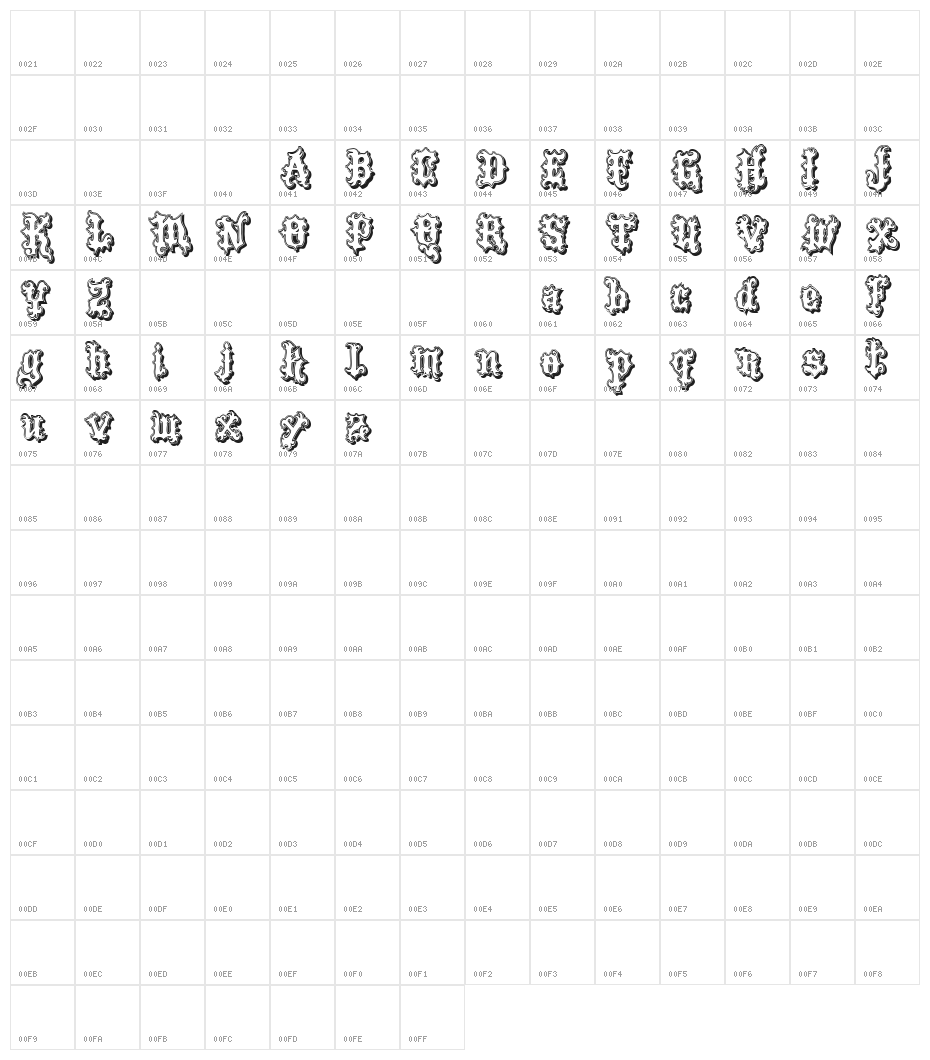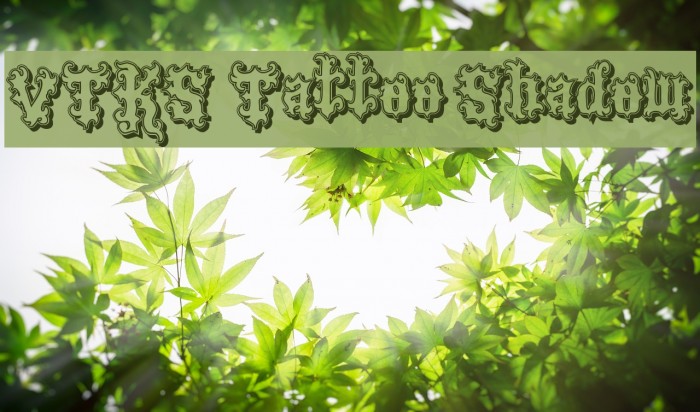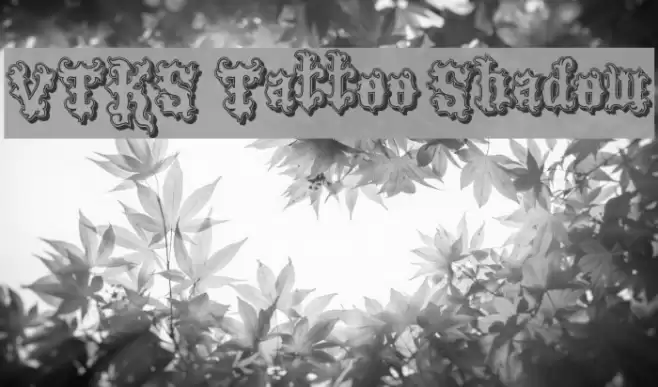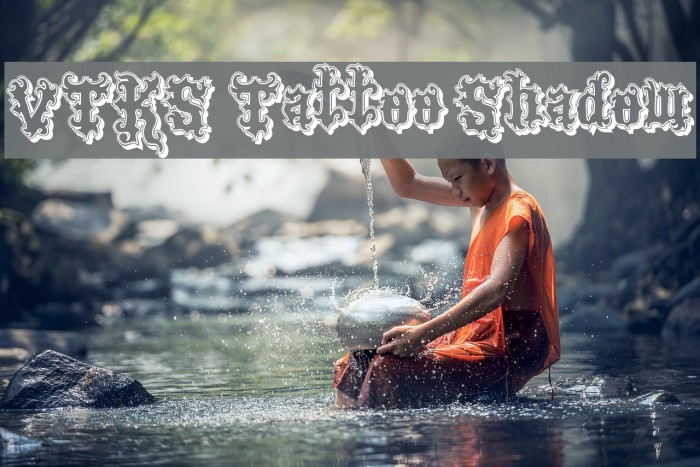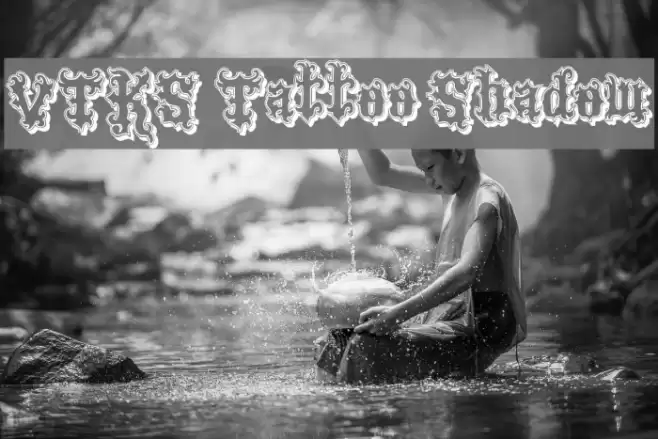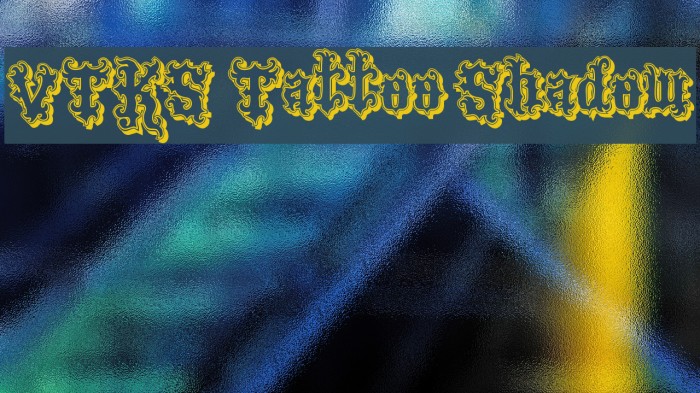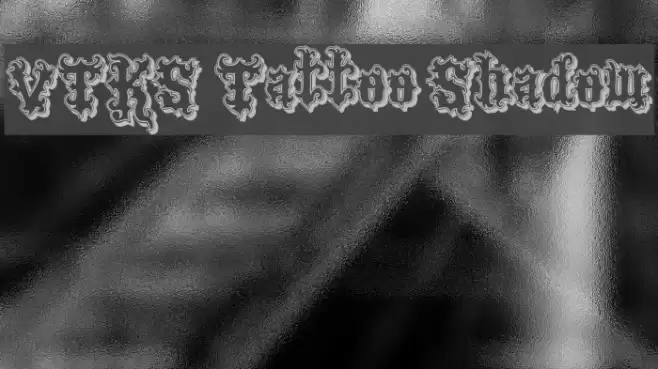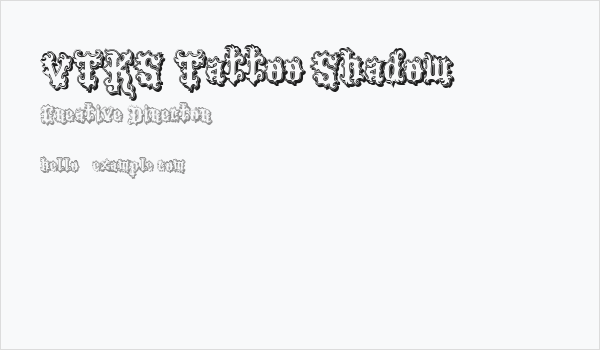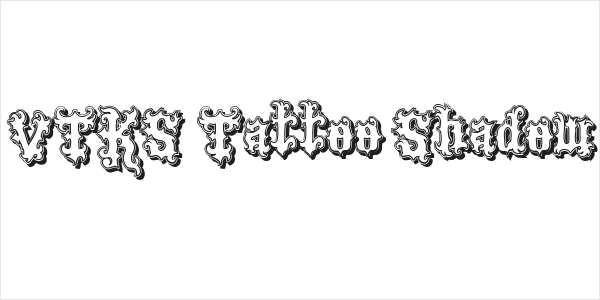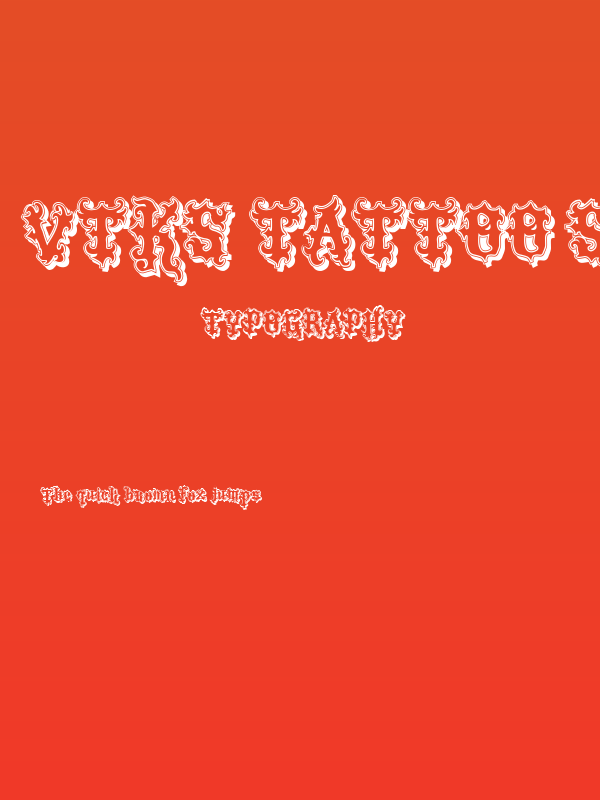
VTKS Tattoo Shadow Font
VTKS Tattoo Shadow Description
This font features an intricate and ornate design, reminiscent of traditional tattoo art. Each character is adorned with elaborate flourishes and shadow effects, creating a bold and eye-catching appearance. The letters are highly stylized with sharp edges and decorative elements, giving them a unique and artistic flair. The overall look is dramatic and expressive, making it suitable for projects that require a strong visual impact. The font's shadowing adds depth and dimension, enhancing its striking presence.
Proposed ProjectsIdeal for tattoo designs, album covers, posters, and branding that requires a bold, artistic touch.